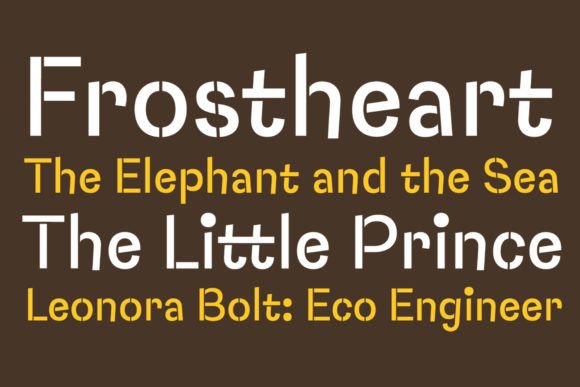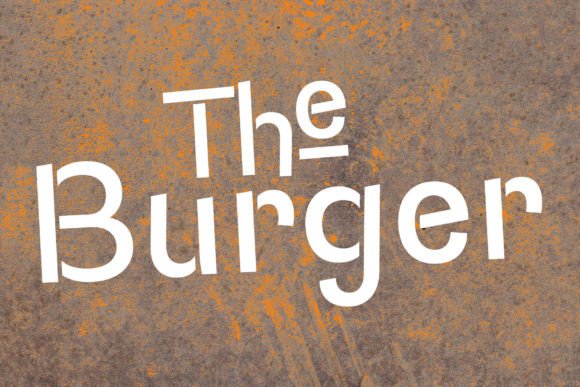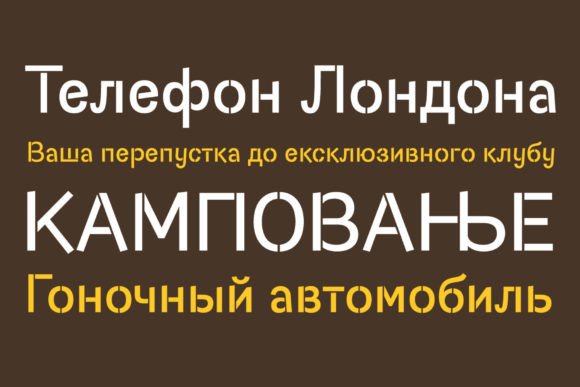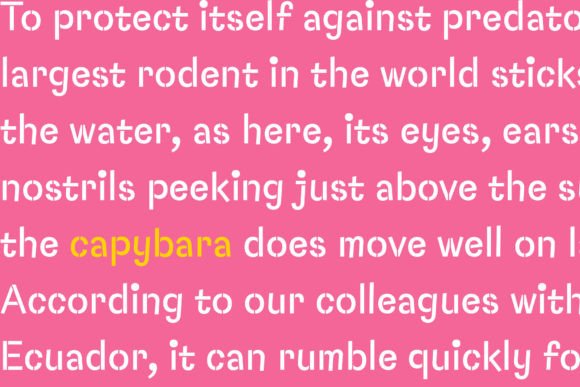
Introducing Capybara Stencil Font: A Playful and Creative Typeface for Kids’ Designs
Are you a designer or crafter looking for a fun and informal typeface to add a playful touch to your kids’ titles and logos? Look no further than the Capybara Stencil Font! This delightful stencil-style font is perfect for projects aimed at youth and children, and its versatility and creative design options make it an excellent addition to any design toolkit.
What is Capybara Stencil Font?
Capybara Stencil is a carefully crafted typeface designed in a stencil style, giving it a unique and edgy feel. Its playful and informal nature makes it an ideal choice for kids’ titles, logos, and other creative projects. The font’s design is inspired by the capybara, a large rodent native to South America, known for its friendly and social nature. The font’s personality reflects these traits, making it perfect for designs that require a friendly and approachable tone.
Key Features of Capybara Stencil Font
So, what makes Capybara Stencil Font so special? Here are some of its key features:
- Cyrillic Alphabet Support: The font includes support for the Cyrillic alphabet, making it a great choice for designers working with Russian or other Cyrillic-based languages.
- Alternative Characters and Ligatures: Capybara Stencil Font comes with alternative characters and ligatures, providing you with a range of creative design options to add a personal touch to your projects.
- Stencil Style: The font’s stencil style gives it a unique and edgy feel, perfect for kids’ designs that require a playful and informal tone.
Use Cases for Capybara Stencil Font
Capybara Stencil Font is perfect for a wide range of design projects, including:
- Kids’ Logos and Titles: The font’s playful and informal nature makes it an excellent choice for kids’ logos and titles, adding a fun and creative touch to your designs.
- Children’s Book Titles: The font’s stencil style and alternative characters make it perfect for children’s book titles, adding a unique and eye-catching touch to your book covers.
- Crafting and DIY Projects: Capybara Stencil Font is also great for crafting and DIY projects, such as making kids’ party decorations, gift tags, or other creative projects.
Why Choose Capybara Stencil Font?
So, why should you choose Capybara Stencil Font for your design projects? Here are just a few reasons:
- Unique and Playful Design: The font’s stencil style and playful nature make it a unique and eye-catching addition to any design project.
- Versatility: The font’s support for the Cyrillic alphabet and alternative characters make it a versatile choice for a wide range of design projects.
In conclusion, Capybara Stencil Font is a playful and creative typeface that’s perfect for kids’ designs. Its stencil style, support for the Cyrillic alphabet, and alternative characters make it a versatile and unique addition to any design toolkit. Whether you’re a designer or crafter, Capybara Stencil Font is sure to add a fun and creative touch to your projects. So why wait? Download Capybara Stencil Font today and start creating!